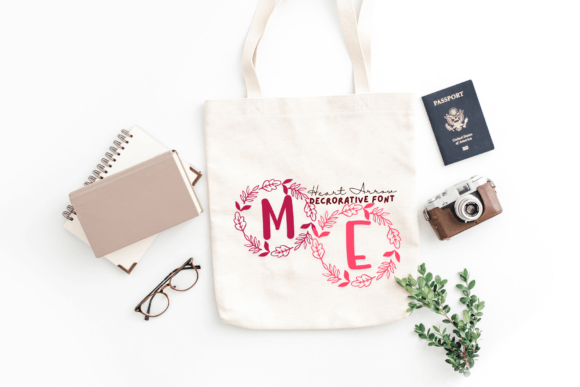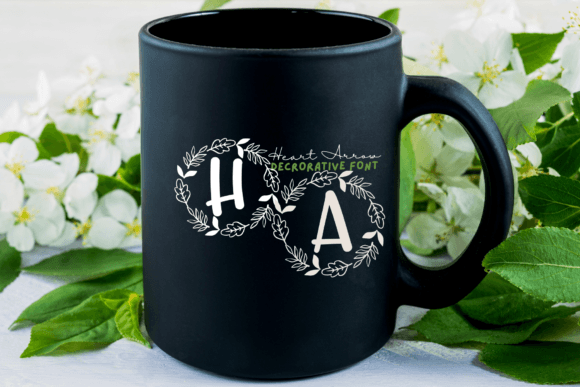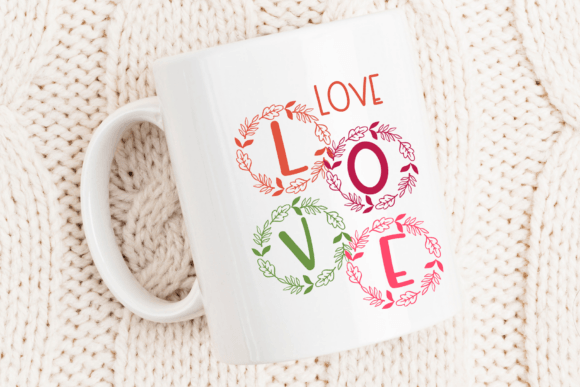
Foliage Autumn Font: Add a Touch of Seasonal Charm to Your Designs
As the seasons change and autumn leaves start to fall, designers and crafters are on the lookout for fonts that capture the essence of this cozy time of year. If you’re searching for a decorative font that’s perfect for autumn-inspired projects, look no further than Foliage Autumn Font. In this article, we’ll explore the features and uses of this beautiful font, and show you how to make the most of it in your designs.
What is Foliage Autumn Font?
Foliage Autumn Font is a decorative font that’s designed to evoke the feeling of autumn leaves and cozy seasonal charm. With its intricate and ornate lettering, this font is perfect for adding a touch of elegance and sophistication to your designs. Whether you’re creating a greeting card, a banner, or a social media post, Foliage Autumn Font is sure to make your project stand out.
Uses for Foliage Autumn Font
Foliage Autumn Font is a versatile font that can be used for a wide range of projects. Here are some ideas to get you started:
- Note-taking and journaling: Add a touch of autumnal charm to your notes and journal entries with Foliage Autumn Font. Perfect for writing down your thoughts, goals, and ideas.
- Greeting cards and invitations: Create beautiful and unique greeting cards and invitations for special occasions like Thanksgiving, Halloween, or birthdays.
- Banners and signs: Use Foliage Autumn Font to create eye-catching banners and signs for your blog, website, or social media channels.
- Mugs and ceramics: Add a personal touch to your mugs, cups, and ceramics with Foliage Autumn Font. Perfect for a cozy morning coffee or tea.
- Shirts and apparel: Create unique and stylish shirts, hoodies, and other apparel with Foliage Autumn Font. Great for seasonal events or everyday wear.
- Stationery and paper crafts: Use Foliage Autumn Font to create beautiful stationery, gift tags, and paper crafts like cards, gift boxes, and more.
- Social media posts: Add a touch of autumnal charm to your social media posts, stories, and reels with Foliage Autumn Font.
Tips for Using Foliage Autumn Font
Here are some tips for getting the most out of Foliage Autumn Font:
- Experiment with colors: Try pairing Foliage Autumn Font with warm autumnal colors like orange, yellow, and red to create a cozy and inviting atmosphere.
- Mix and match fonts: Combine Foliage Autumn Font with other fonts to create a unique and visually appealing design.
- Use it sparingly: Foliage Autumn Font is a decorative font, so use it sparingly to avoid overwhelming your design.
- Pay attention to legibility: Make sure to adjust the font size and style to ensure that your text is legible and easy to read.
Foliage Autumn Font is a beautiful and versatile decorative font that’s perfect for adding a touch of autumnal charm to your designs. With its intricate and ornate lettering, this font is sure to make your projects stand out. Whether you’re a designer, crafter, or simply someone who loves the autumn season, Foliage Autumn Font is a great addition to your font collection. So why not give it a try and see how you can use it to create unique and eye-catching designs?
Get Creative with Foliage Autumn Font
Ready to get creative with Foliage Autumn Font? Here are some ideas to inspire you:
- Create a fall-themed blog post: Use Foliage Autumn Font to create a beautiful and eye-catching blog post about your favorite autumnal activities, recipes, or traditions.
- Make a seasonal social media challenge: Create a social media challenge that encourages followers to share their own autumn-inspired designs using Foliage Autumn Font.
- Design a fall-themed printable: Use Foliage Autumn Font to create a beautiful and printable autumn-themed art piece, such as a leaf garland or a pumpkin patch.